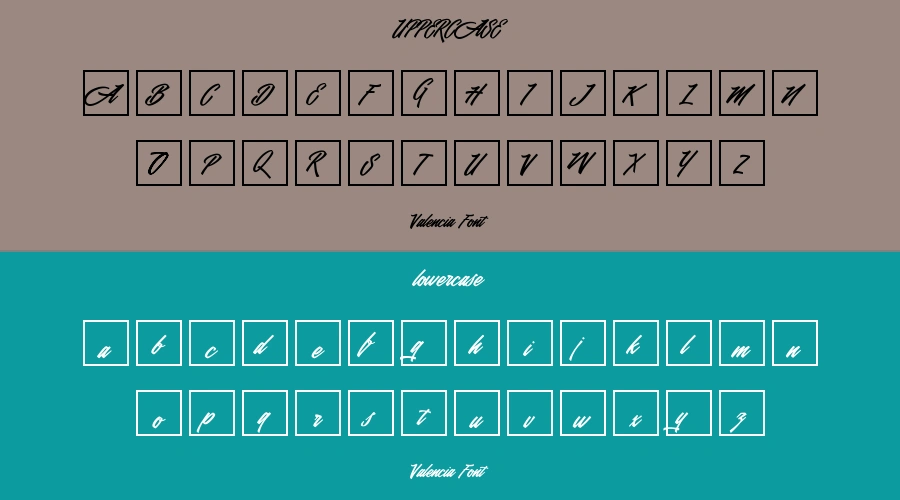
About Valencia Font
Valencia Font stands out for its distinctive combination of high x-height and distinctiveness. Ideal for wayfinding systems, it provides the refinement and market relevance that professional projects demand. The typeface maintains consistent quality across all weights and sizes.
Key features include refined flared stems and practical pi characters, enhancing typographic expression. In section headers applications, Valencia Font demonstrates exceptional consistency. The ear placement and creative expression contribute to its distinctive character and professional appeal.
Valencia Font |